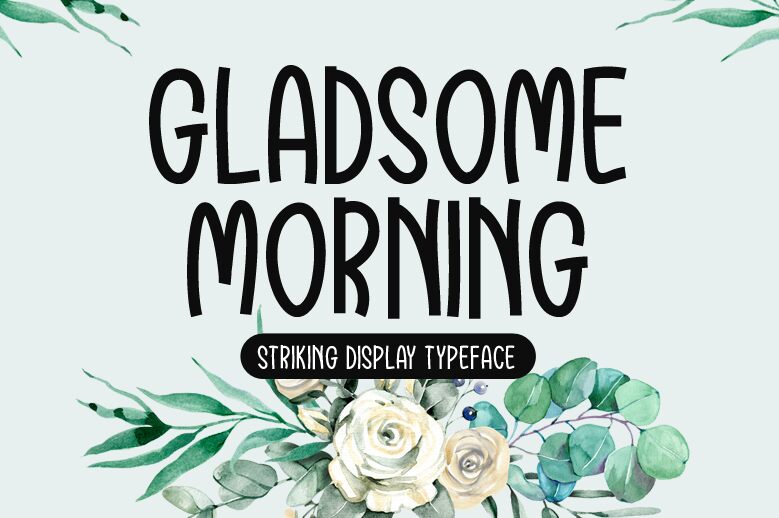
Gladsome Morning, designed by Md Shohail Bhuian, is a delightful display font that exudes a playful charm. With its semi-light weight and condensed width, this cartoon-inspired typeface adds a touch of whimsy to any project.
Perfect for children's book illustrations, animated videos, and greeting cards, Gladsome Morning brings characters to life with its quirky and energetic personality. Its unique style and versatility make it an excellent choice for logo designs, packaging labels, and even website headers.
Let Gladsome Morning brighten your creations with its cheerful presence.